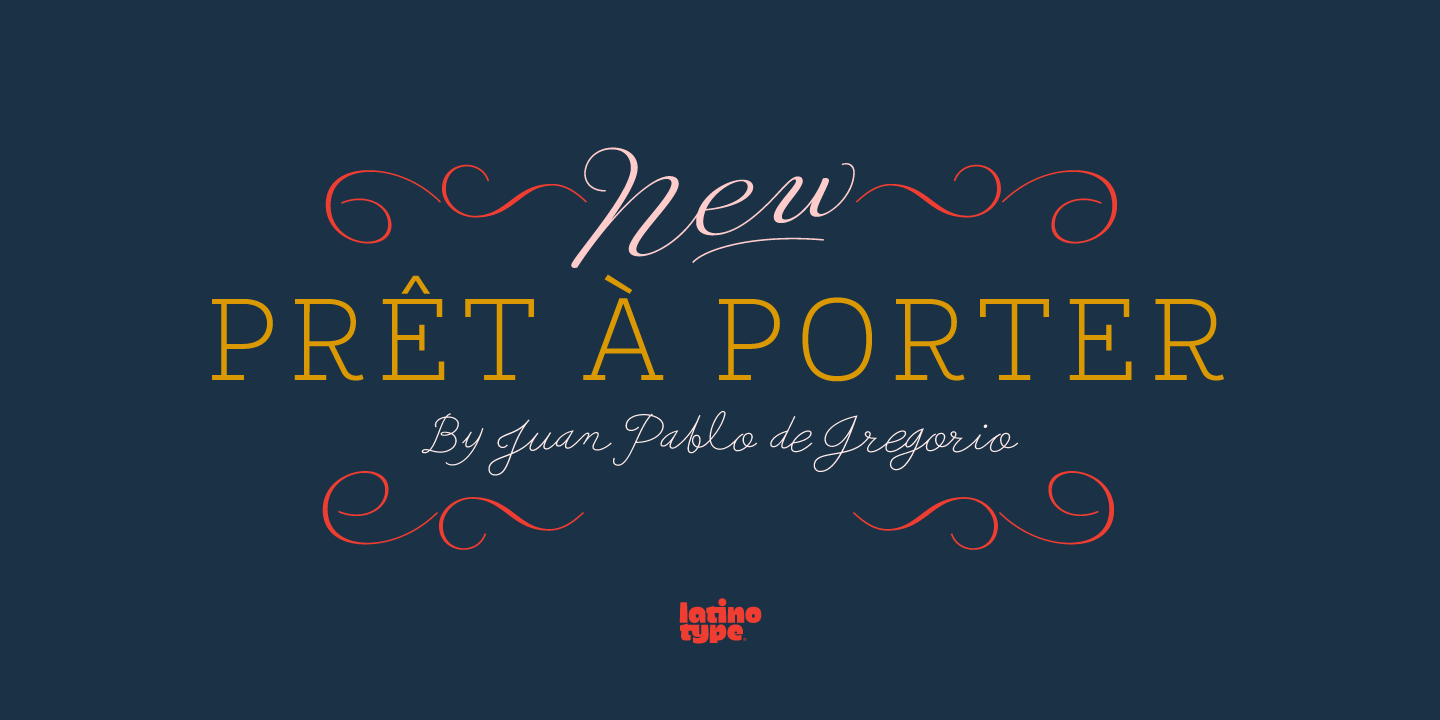
Prêt-à-porter Font is perfect for fashion and ready-to-wear applications including contemporary fashion magazines, modern boutique branding, fashion week materials, designer clothing labels, fashion blogger content, trendy retail signage, fashion e-commerce platforms, and style-conscious marketing campaigns. This chic typeface brings accessible elegance and fashion-forward sophistication to projects targeting style-conscious consumers and contemporary fashion markets.
What makes Prêt-à-porter Font exciting is its perfect balance of high-fashion elegance with everyday accessibility that mirrors the ready-to-wear fashion philosophy. The font features sleek letterforms with refined proportions that convey contemporary sophistication without intimidating exclusivity. Its approachable character design incorporates modern fashion sensibilities with practical readability, making it ideal for brands that want to communicate style and quality while remaining accessible to broader audiences.
The Prêt-à-porter Font family includes comprehensive weight options from light to bold, each maintaining consistent fashion-forward character and commercial viability. The family encompasses regular and italic styles designed for maximum versatility in fashion communications. Extended character sets and fashion-specific symbols support international fashion brands and multilingual marketing campaigns across global fashion markets.
Fashion retailers and contemporary brands consistently choose Prêt-à-porter Font Free Download for projects requiring accessible fashion typography and commercial appeal. Whether developing ready-to-wear campaigns, creating fashion retail materials, or designing contemporary brand identities, this font delivers exceptional style and market relevance. Its unique combination of fashion sophistication and commercial accessibility makes it an essential tool for fashion professionals working on mainstream fashion projects, retail communications, and contemporary lifestyle brands that need typography reflecting modern fashion sensibilities and commercial success in competitive retail environments.